Open Fonts in 2022
FONT
CHOICE
MATTERS
I
will
always
find
you
Parisienne
I
will
always
find
you
I
will
always
find
you
Parisienne
Nosifer
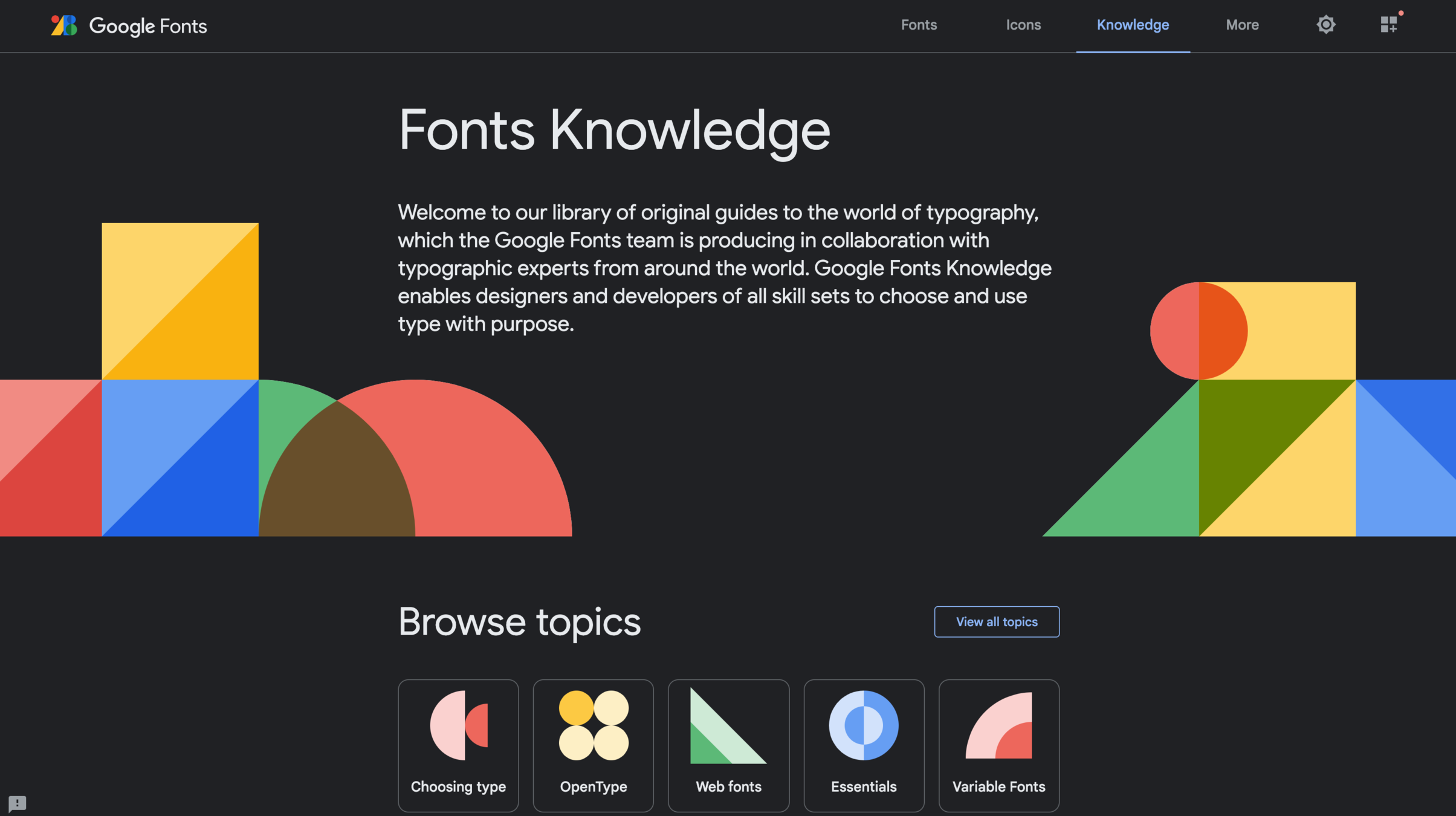
it’s been wild
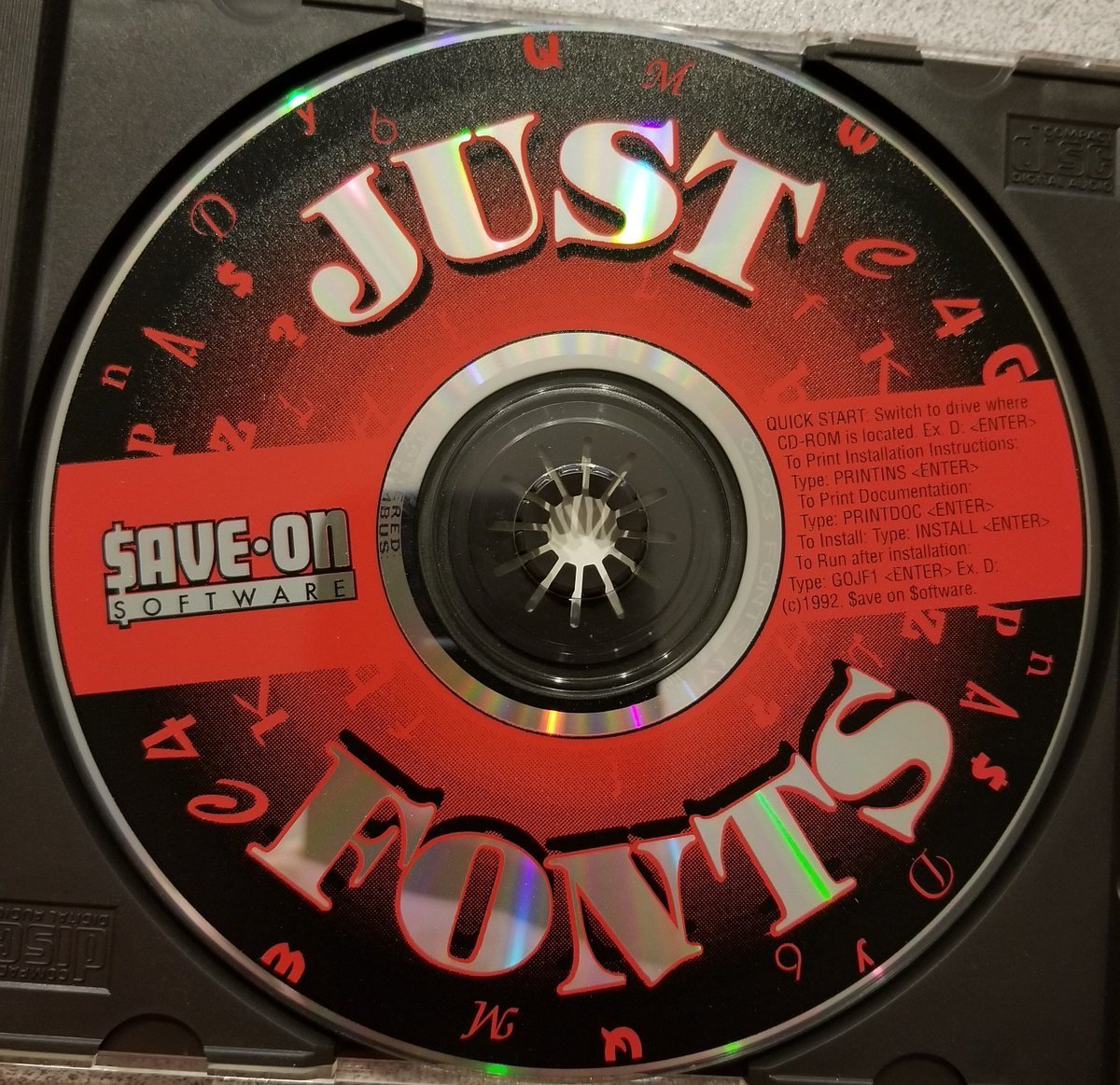
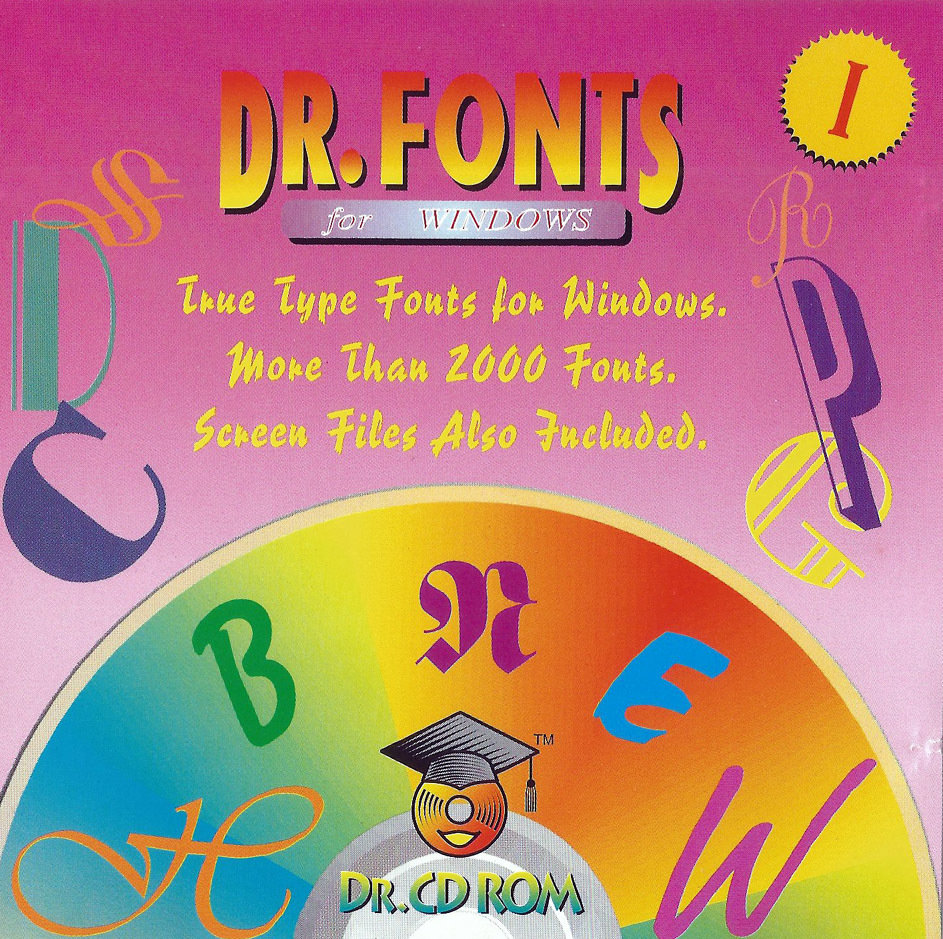
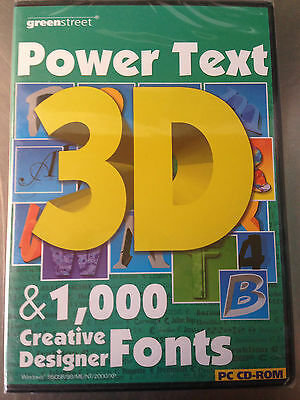
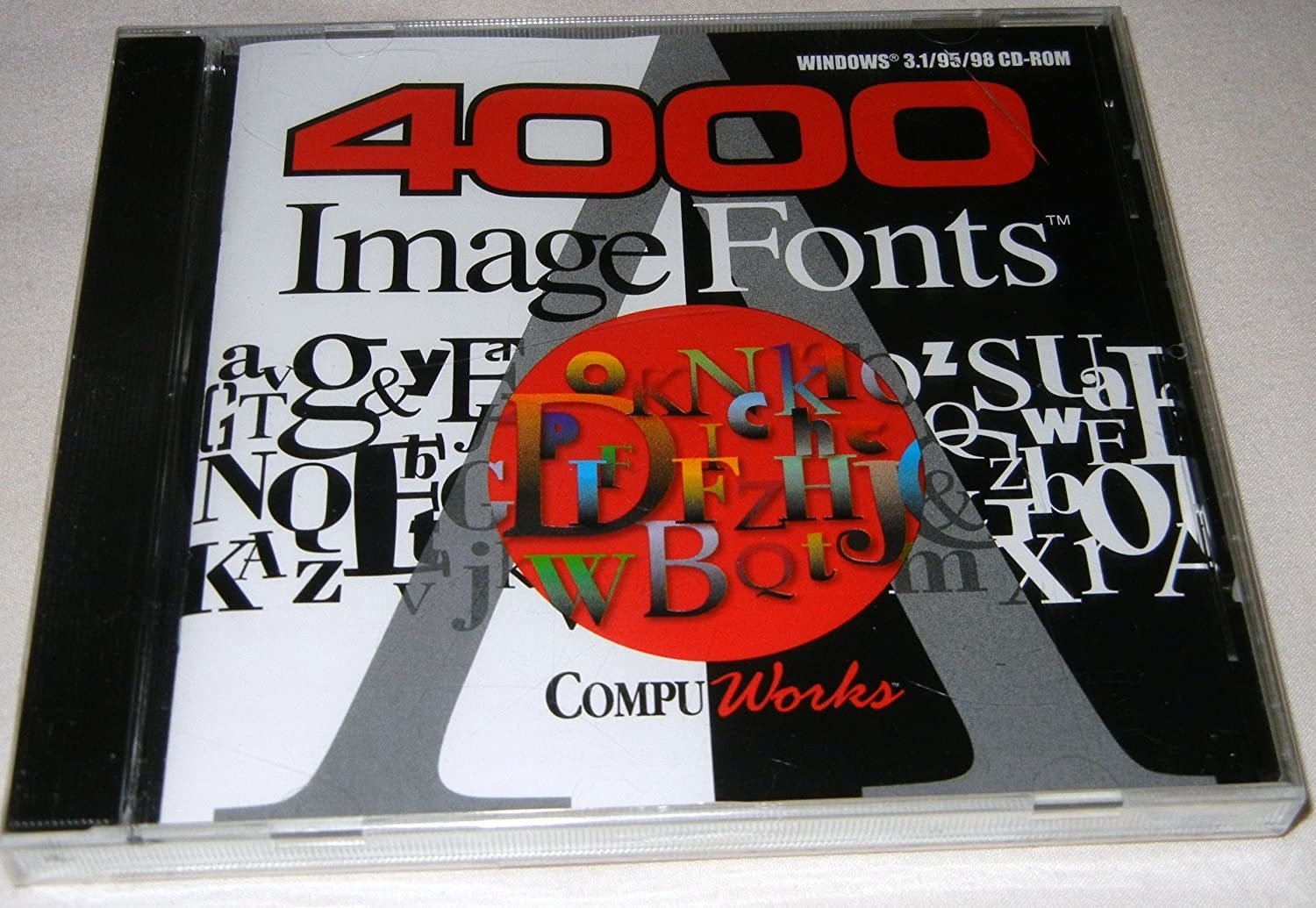
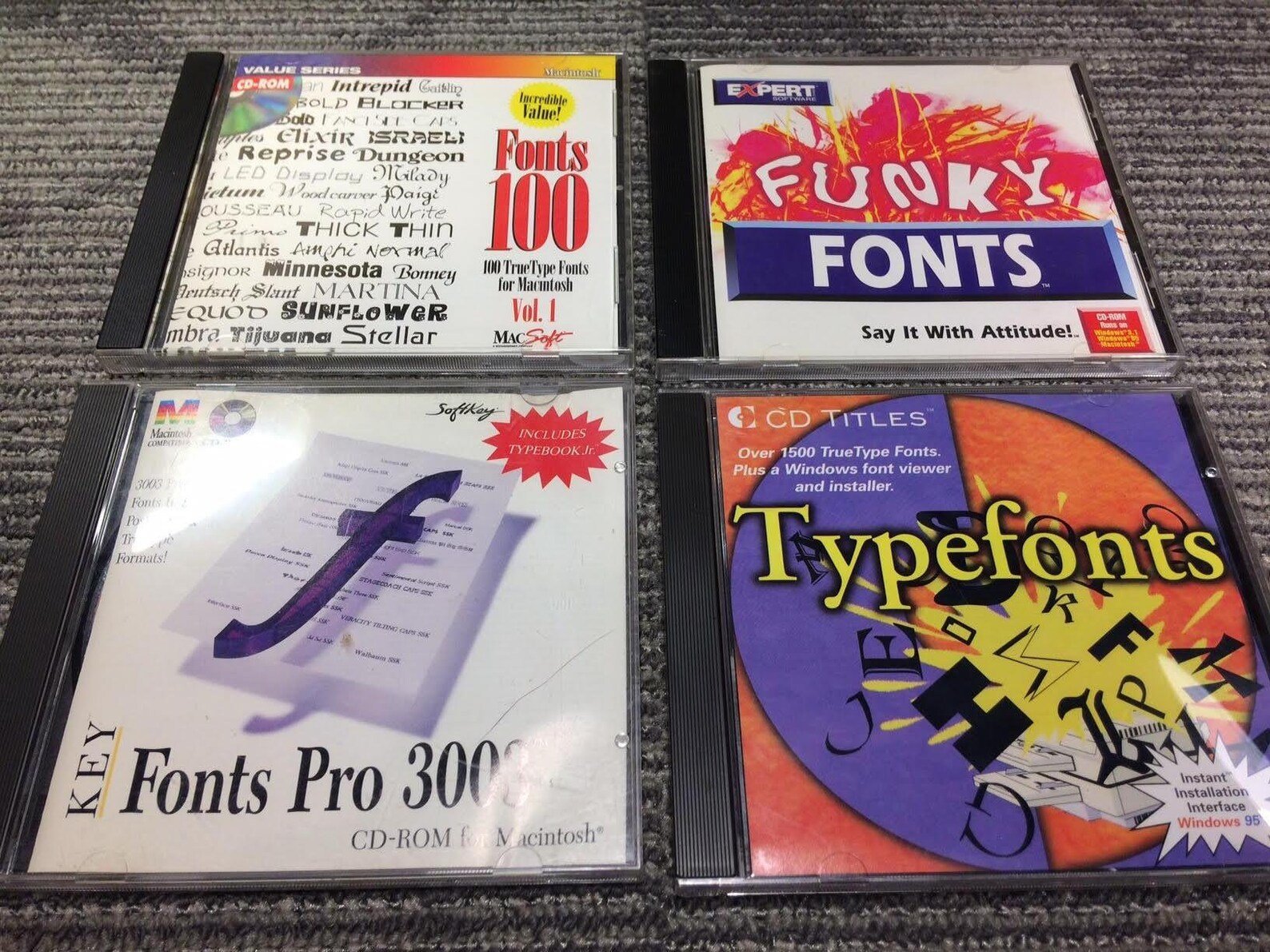
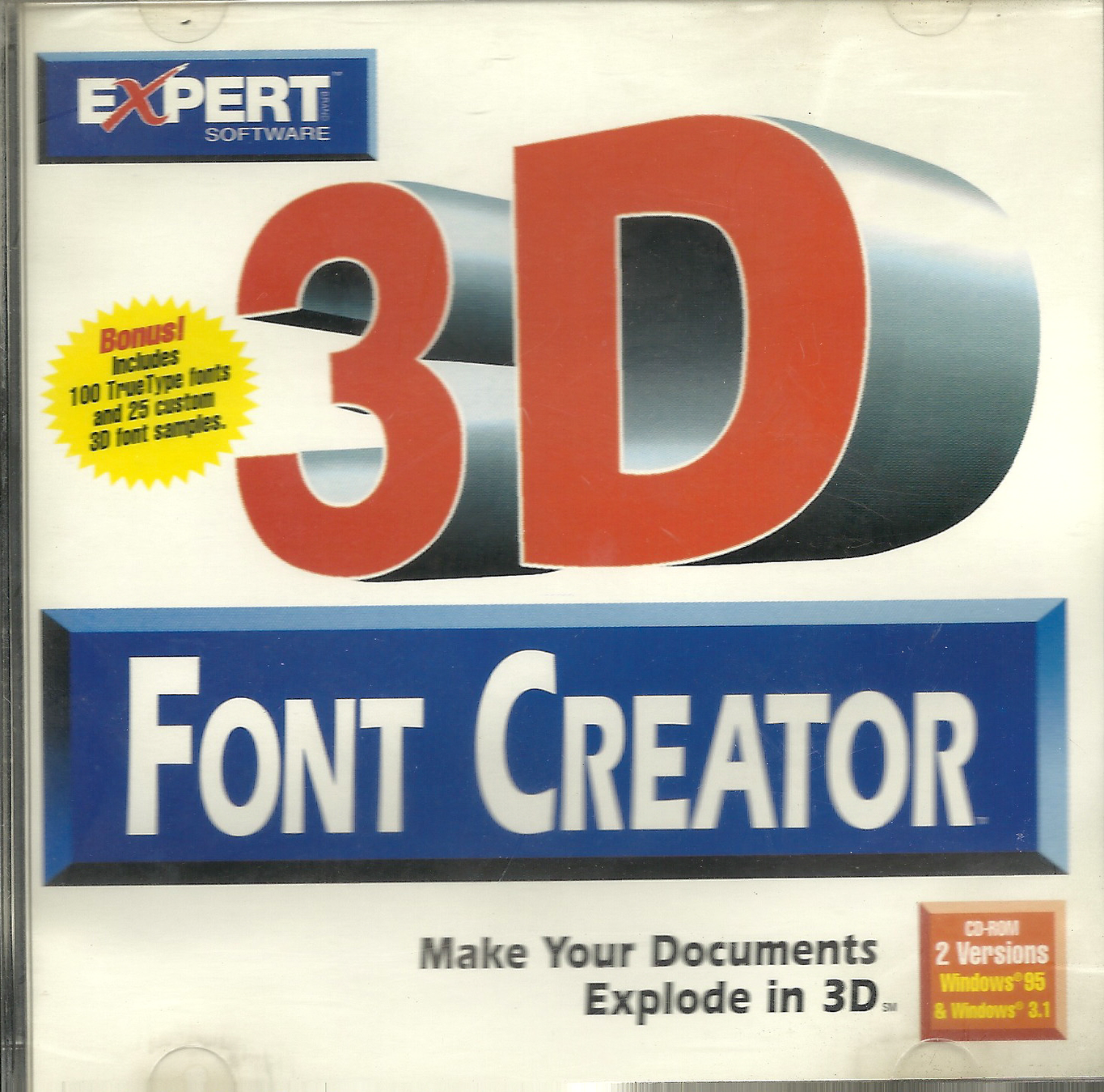
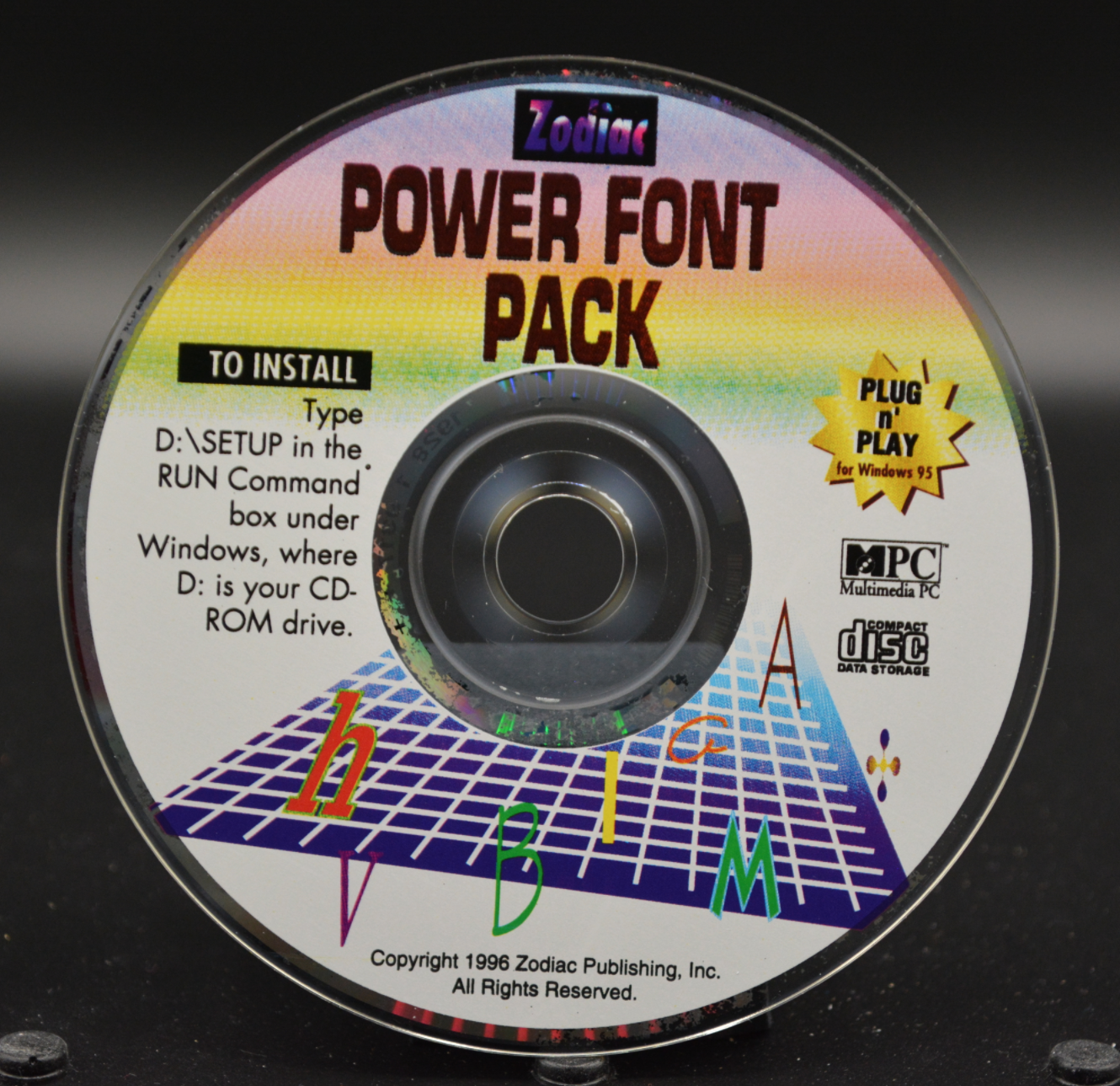
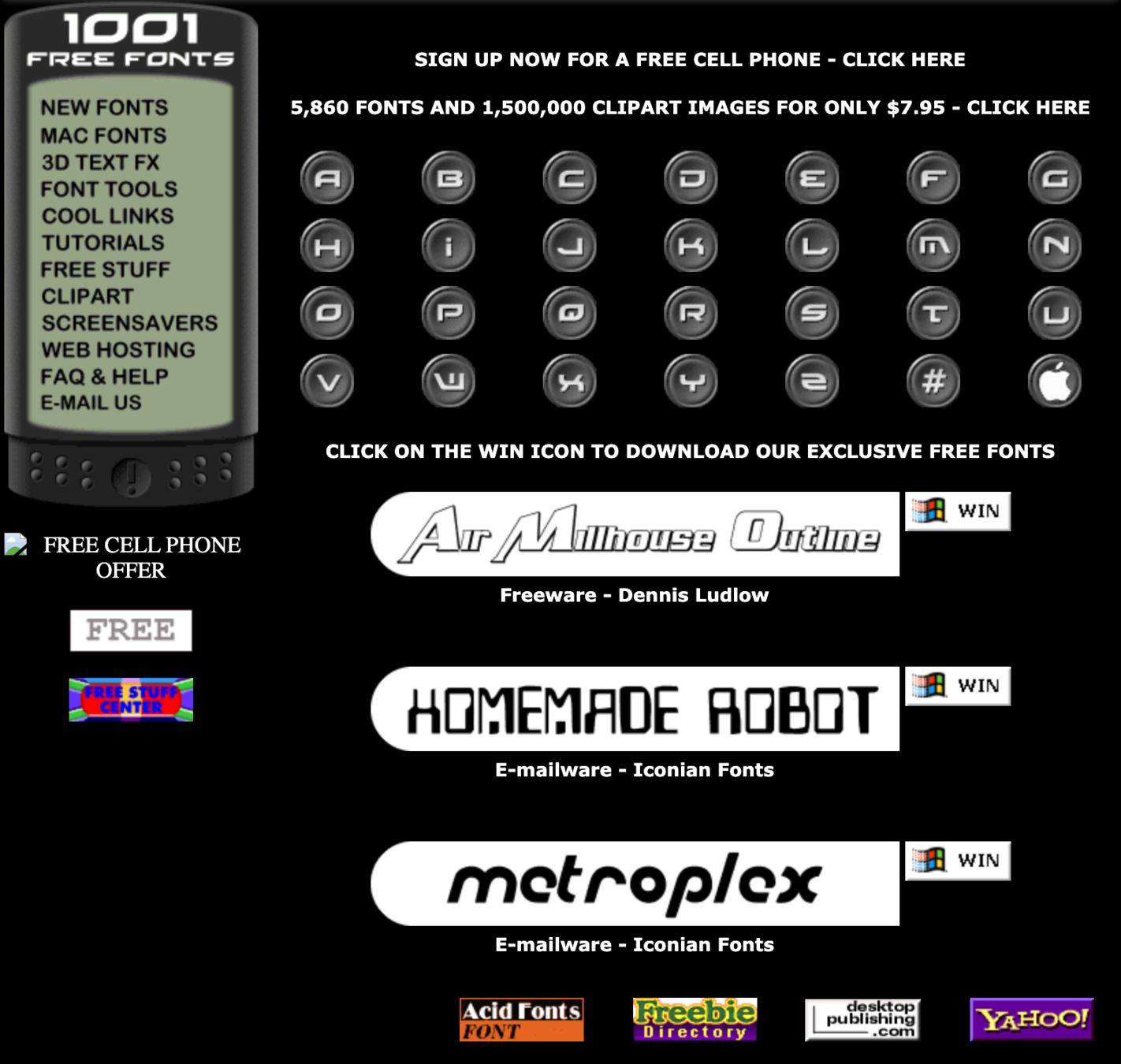
1986 ~ 2006
trash commoditisation
2007-NOW...
community power
Nicolas Spalinger & Victor Gaultney
a brief history of typography
1040
Song Dynasties – First movable type
~1200s
1450
Metal type from Korea
Gutenburg Bible
early 1900's
Beatrice Warde
1760 – 1840
Industrial revolution
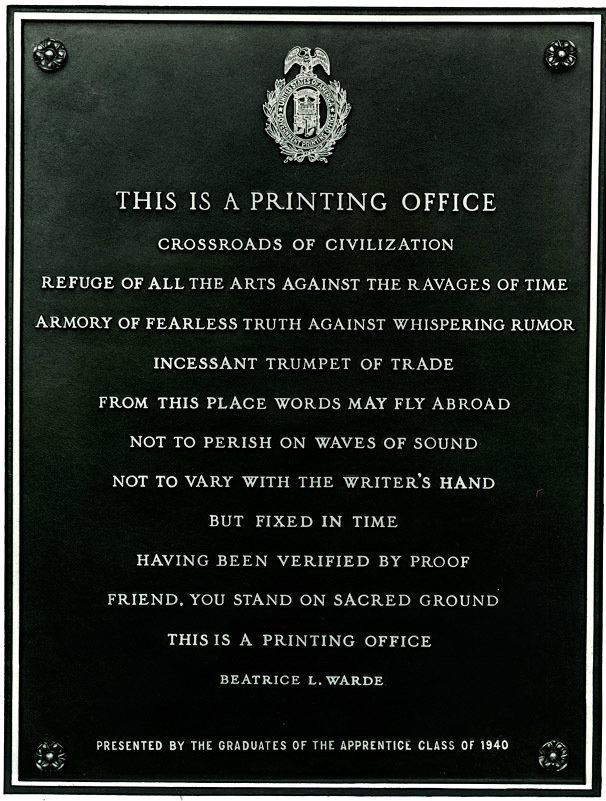
“People who love ideas
must have a love of words.
They will take a vivid interest in
the clothes that words wear”
Beatrice warde
AKA “Paul Beaujon”
a brief history of
digital typography
1968
Digiset 50T1 - CRT phototypesetting
Digi Grotesk
Rudolph Hell
1978
TEX and METAFONT
Donald Knuth
1984
Macintosh
Steve Jobs
1984
Postscript
(macOS1 Helvetica, Times, Courier)
John Warnock, Chuck Geschke, Doug Brotz, Ed Taft, Bill Paxton
1989
Truetype
(Win3 macOS 7 )
Arial, Times New Roman, Courier New
end of the cold war
Apple / Microsoft
1991
Globalisation push
Unicode Consortium
1996
OpenType
- Unicode Support
- Ligatures
- Small Caps
- Stylistic Alternates
Microsoft + Adobe
&
2009
Webfonts
Google Fonts Proposed
(launched following year)
Mozilla, Opera, W3C
2016
Variable Fonts
Harfbuzz (was pango) & Freetype
Behdad Esfahbod
%$‘’{en
2022
COLRv1 Gradient Vector Fonts
Custom Emoji !!!
Today!
... and the wild west
GET A FONT
Runebender
MFEK
darling of the day
old standard
+fontographer
hackable & modern
Free as in freedom
Emerging & Rusty
New and ambitious
PUT A FONT
Continuous Integration / Continuous Delivery
Fontmake
GF Tools
FontTools
Creating a typeface in 2022
Will hurt your feelings
and make your font great
cool future, is cool
new splines
ginger
jellyfish
goose
maracas
black bird
Unicode 15 Emoji
shaking face
flute
donkey
mooseface
hand fan
pea pod
wing
comb
lavender
+ more